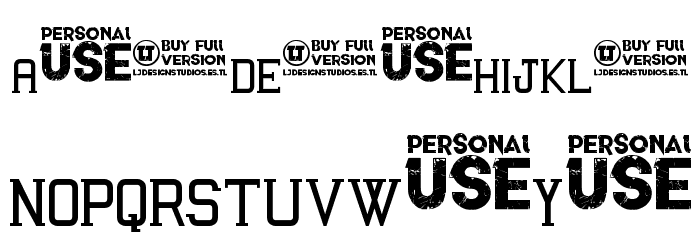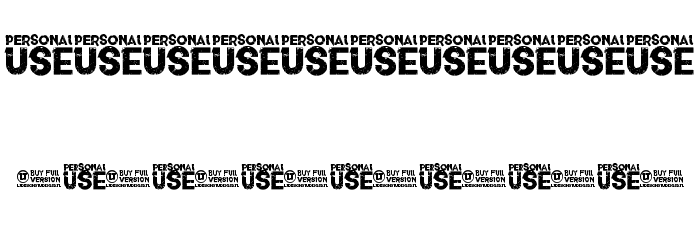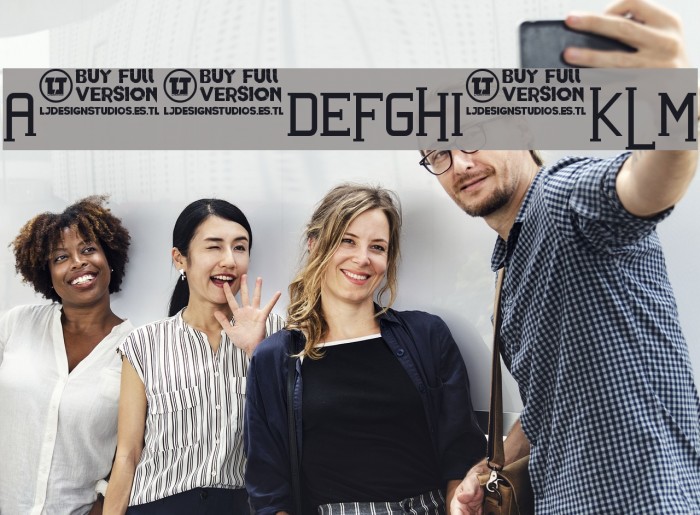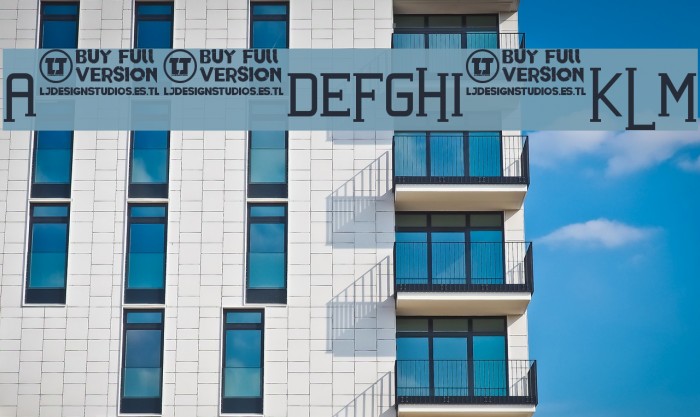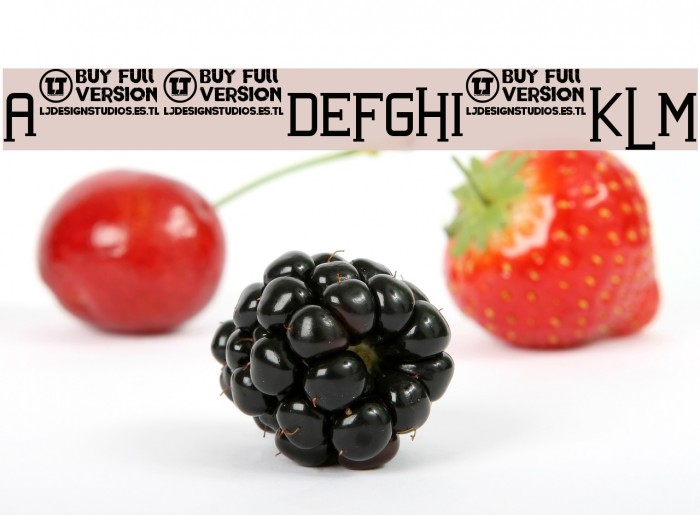
Awakened Font
This font features a bold and modern design with a strong emphasis on geometric shapes and clean lines. The uppercase letters are tall and narrow, giving a sense of elegance and sophistication. The lowercase letters maintain a consistent style, complementing the uppercase with a slightly more compact form. The numbers are clear and legible, matching the overall aesthetic. Special characters are designed with the same attention to detail, ensuring a cohesive look across all elements. The font's style is suitable for a variety of applications, offering versatility and a contemporary feel.
A bold, modern font with geometric shapes and clean lines.
- Proposed Projects: Ideal for branding, advertising, and digital media projects requiring a modern and sophisticated look.
- Use Case: Headlines, Logos, Branding